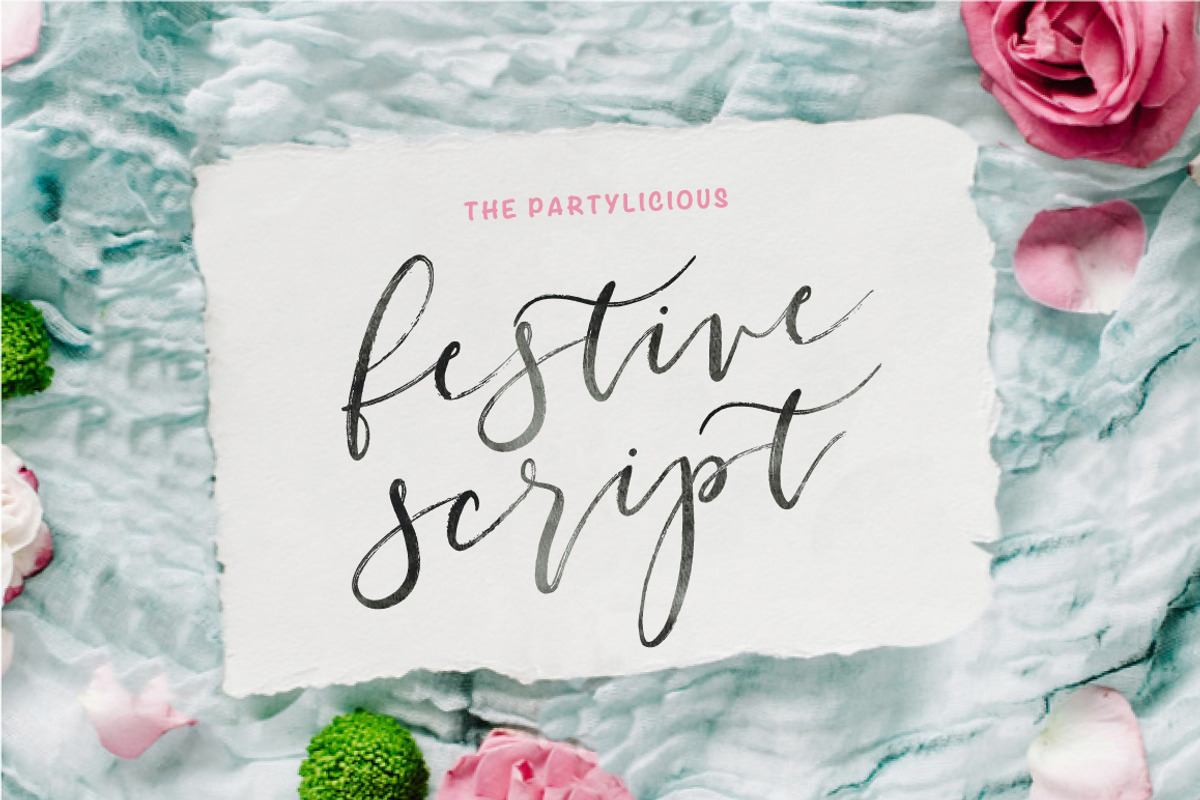
The Partylicious Festive Script Font is perfect for birthday party invitations, holiday greeting cards, celebration banners, wedding announcements, festive packaging design, party planning materials, event signage, anniversary cards, baby shower invitations, graduation celebrations, seasonal decorations, and joyful branding projects.
The Partylicious Festive Script Font is exciting because it embodies pure celebration and festive joy through its vibrant, energetic letterforms that instantly create party atmosphere and celebratory mood. This delightful script font features flowing curves and playful flourishes that dance across the page, bringing life and excitement to every design project. The font's infectious energy makes ordinary text feel like a celebration, perfect for creating memorable moments and special occasions.
The Partylicious Festive Script Font includes comprehensive font families: Regular Festive Script, Bold Celebration Style, Light Party Touch, Italic Dancing Letters, Swash Decorative Elements, Ornamental Flourishes, Shadow Party Effects, Glitter Texture Variations, Balloon-Inspired Characters, and Special Celebration Symbols, providing endless creative possibilities for festive designs.
This enchanting typography solution transforms ordinary invitations and announcements into extraordinary celebration experiences through its authentic party-inspired aesthetic and joyful design language. The Partylicious Festive Script Font Free Download enables designers and party planners to access premium celebratory typography that instantly adds excitement, happiness, and festive spirit to any project. The font's carefully crafted letterforms ensure excellent readability while maintaining its distinctive celebratory character.
Event planners, party designers, and celebration enthusiasts rely on The Partylicious Festive Script Font for its ability to communicate joy and create emotional connections that make special occasions truly memorable. The typeface's elegant script styling performs beautifully across various applications, from intimate personal invitations to large-scale event displays. Its extensive character support includes multilingual capabilities and decorative elements designed specifically for celebration contexts.
The creative inspiration behind The Partylicious Festive Script Font draws from the universal language of celebration, incorporating design elements that evoke happiness, togetherness, and special moments. This celebration-focused approach creates a font that feels genuinely festive while maintaining professional quality and versatility across different party themes and occasions.
Whether creating milestone birthday celebrations, holiday festivities, or wedding announcements, this script font delivers exceptional results that capture the magic of special moments. Download The Partylicious Festive Script Font today and discover how premium celebratory typography can transform your party planning projects into unforgettable experiences filled with joy and festive sophistication.